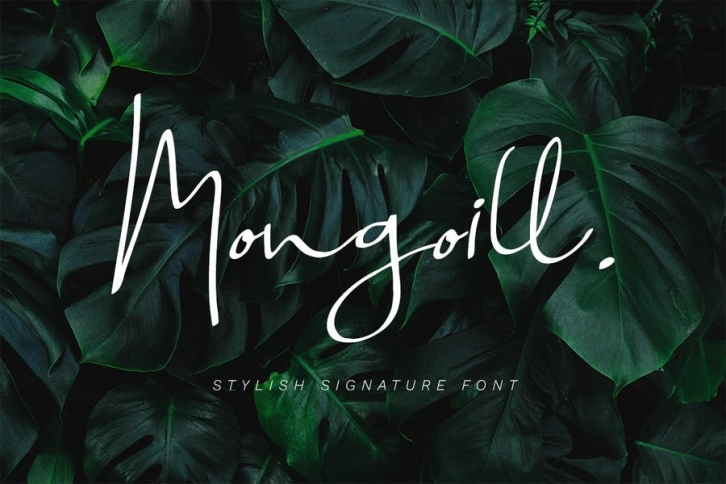
Mongoill a new handwritten font. This another collection of script is perfect for your next branding project, excellent for your business. Mongoill have a smooth edges, so this font gives an authentic handcrafted feel style.
Mongoill is perfect choice for people looking for clean, modern, minimalist, elegant, beauty design styles. Suitable for almost any graphic designs such as logo, branding materials, business cards, gift cards, t-shirt, cover, thumbnail, print, poster, photography, quotes .etc